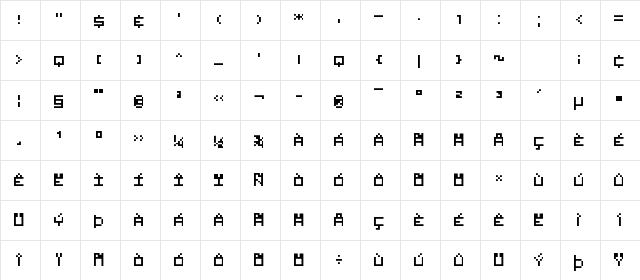
Visitor TT2 BRK Regular
Foundry: ￿IGMA FONTS
Designer: ￿IGMA FONTS - Brian Kent
Visitor TT2 BRK Family
Design Context for Visitor TT2 BRK
Visitor TT2 BRK is a composed and adaptable typeface that performs quietly and consistently across a wide range of design contexts.